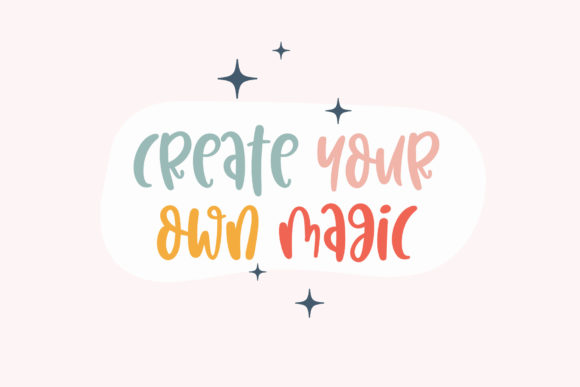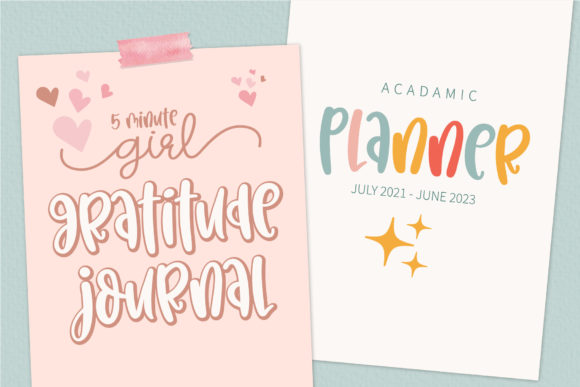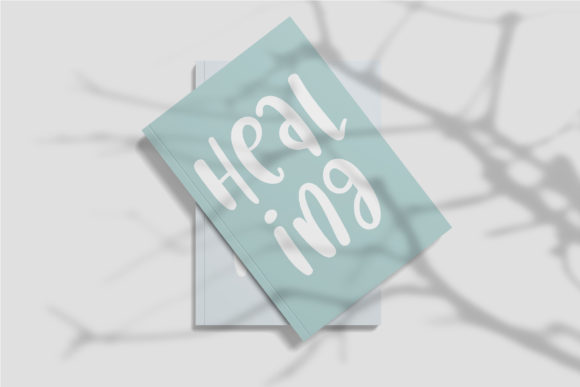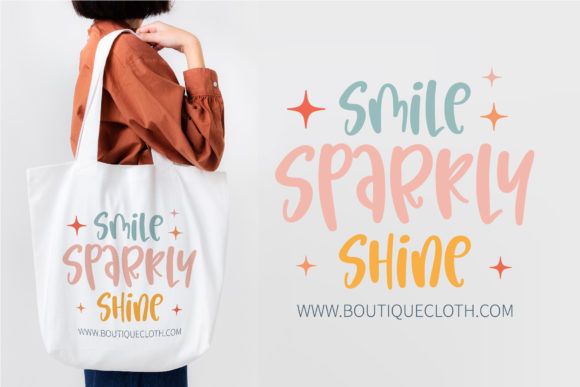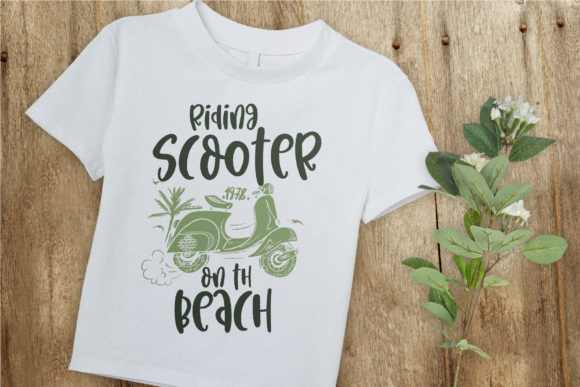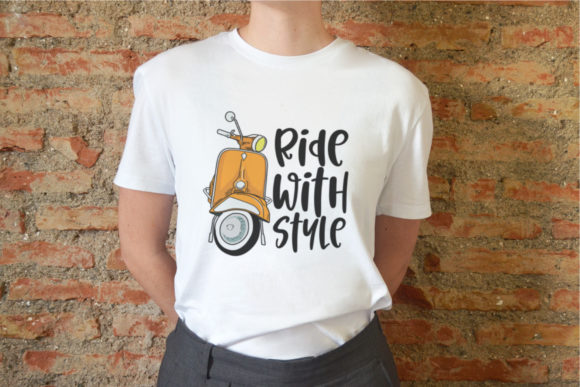
Introduction to Good Things Are Coming Font
As a designer, you know that sometimes the perfect font can make all the difference in bringing your creative vision to life. I still remember the moment I stumbled upon the perfect handwritten font for a client’s branding project. It was a eureka moment – the font was quirky, friendly, and just the right amount of whimsical. That’s when I discovered the Good Things Are Coming Font, a free download that has since become a staple in my design toolkit.
With its high-quality design and transparent background, the Good Things Are Coming Font is a valuable resource for any creative project. Whether you’re working on a logo, social media graphics, or a blog post, this font is sure to add a touch of personality and charm. As a design resource, it’s perfect for those looking to add a bit of whimsy to their work.
- High-quality design: This font features a unique, modern design that’s ideal for a variety of creative projects, including logos, posters, and more.
Honest Review: Good Things Are Coming Font
I recently came across the Good Things Are Coming Font, and I was excited to give it a try in my latest design project. As a designer, I’m always on the lookout for high-quality fonts that can elevate my work and make it stand out.
What works well about this font is its clean and modern aesthetic, perfect for creative projects where I need a sleek and professional look. The font is free to download, which is a huge plus, and it’s available in a range of formats, including OTF, TTF, and WOFF.
- ✨ Clean and modern design
However, there are a few limitations to this font. The transparent background can sometimes be tricky to work with, especially if I’m using it for a design with a lot of text overlay. Additionally, the font family is a bit limited, so I may need to supplement it with other fonts to achieve the desired look.
- ⚠️ Limited font family
Overall, I’d say the Good Things Are Coming Font is a solid addition to any designer’s toolkit. While it has its limitations, it’s a high-quality font that’s perfect for creative projects where I need a clean and modern look.
The Good Things Are Coming Font is ideal for creative projects such as posters, flyers, business cards, and social media graphics. Its high-quality design makes it perfect for use in a variety of design applications, from print to digital media.